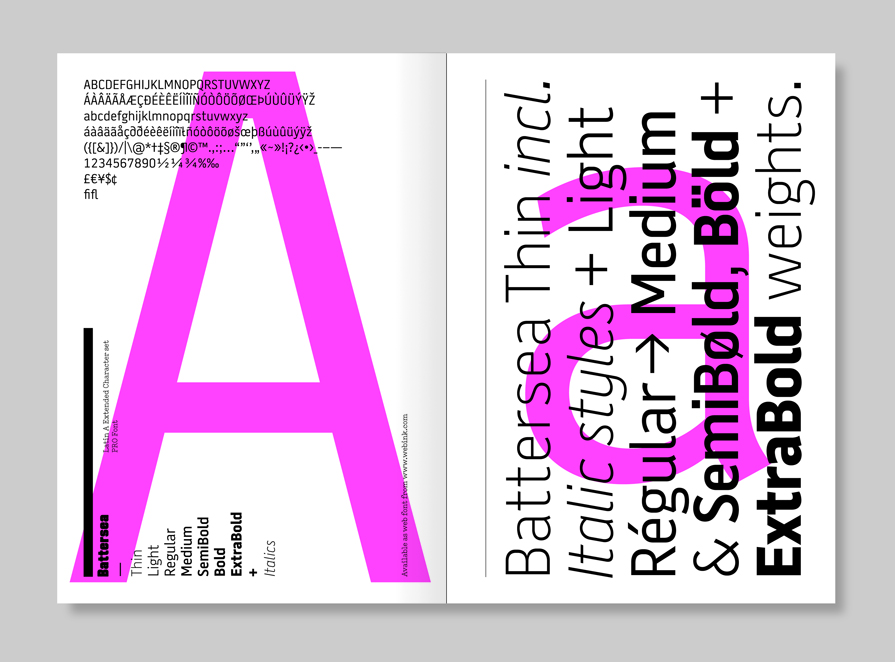
Battersea Sans is a bold, sans serif font inspired by the typefaces Transport Alphabet, Din and Meta. Originally designed in 1999 as a single style font, the design was remodelled a decade later to include an advanced character set, additional weights and complimentary italic styles.
| Font name: | Battersea Sans |
| Font category: | Sans/Grotesque |
| Styles: | Thin Thin Italic Light Light Italic Regular Italic Medium Medium Italic SemiBold Italic Bold Bold Italic ExtraBold Italic |
| Manufacturer: | A2-TYPE |
| Designer: | Henrik Kubel |